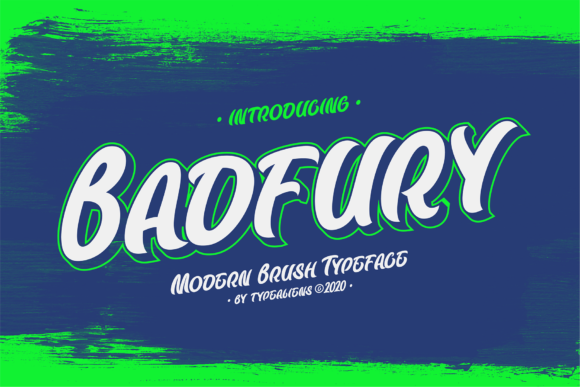
Embrace the Allure of Badfury: A Script Font of Unparalleled Beauty and Sophistication
In a realm where fonts reign supreme, Badfury emerges as a celestial entity, a script font that captivates hearts with its enchanting aura and boundless versatility. Its creators, the ingenious minds at typealiens, have poured their souls into crafting each letterform, imbuing them with a profound sense of elegance and an inviting warmth that transcends the boundaries of the ordinary.
Badfury is not merely a font; it's an ethereal tapestry of beauty and charm, an artistic masterpiece that transforms your creative visions into tangible works of art. Its graceful strokes and delicate curves evoke a sense of timeless sophistication, while its inherent playfulness adds a touch of whimsy and delight to your designs.
Whether you're a seasoned designer seeking to elevate your projects or a budding enthusiast eager to make a statement, Badfury is your muse, your guiding light in the realm of typography. Its versatility knows no bounds, seamlessly adapting to a myriad of creative endeavors. From heartfelt handwritten letters that carry the weight of your emotions to captivating logos that command attention, Badfury is your trusted companion, translating your ideas into visual symphonies.
Step into the Enchanting World of Badfury: A Font That Speaks to Your Soul
With Badfury as your creative ally, you'll embark on a journey of self-expression and artistic exploration. Its meticulously crafted characters possess an innate ability to convey emotions, to breathe life into your designs, and to leave an indelible mark on the hearts of your audience.
Imagine the allure of a wedding invitation adorned with Badfury's elegant script, its graceful letters dancing across the page, whispering promises of love and eternal devotion. Or envision the impact of a poster featuring Badfury's playful charm, its whimsical strokes capturing the essence of a joyous celebration.
Badfury is not just a font; it's a conduit for your creativity, a medium through which you can share your unique perspective with the world. Its versatility extends beyond the realm of digital design, inviting you to explore the tactile beauty of hand-lettered masterpieces.
Unleash Your Creativity with Badfury: A Font That Transcends Boundaries
With Badfury at your fingertips, you'll discover a world of boundless possibilities, where your imagination reigns supreme. Its timeless appeal transcends the confines of specific design genres, making it the perfect choice for a diverse range of projects.
From branding and marketing materials that demand attention to social media posts that spark engagement, Badfury is your secret weapon, transforming ordinary words into captivating visual statements. Its enchanting aura adds a touch of magic to e-commerce websites, drawing customers in with its irresistible charm.
Badfury is more than just a font; it's an investment in your creative journey, a passport to a world of boundless expression. Its versatility and timeless beauty will accompany you through countless projects, inspiring you to push the boundaries of your imagination and create works of art that leave a lasting impression.